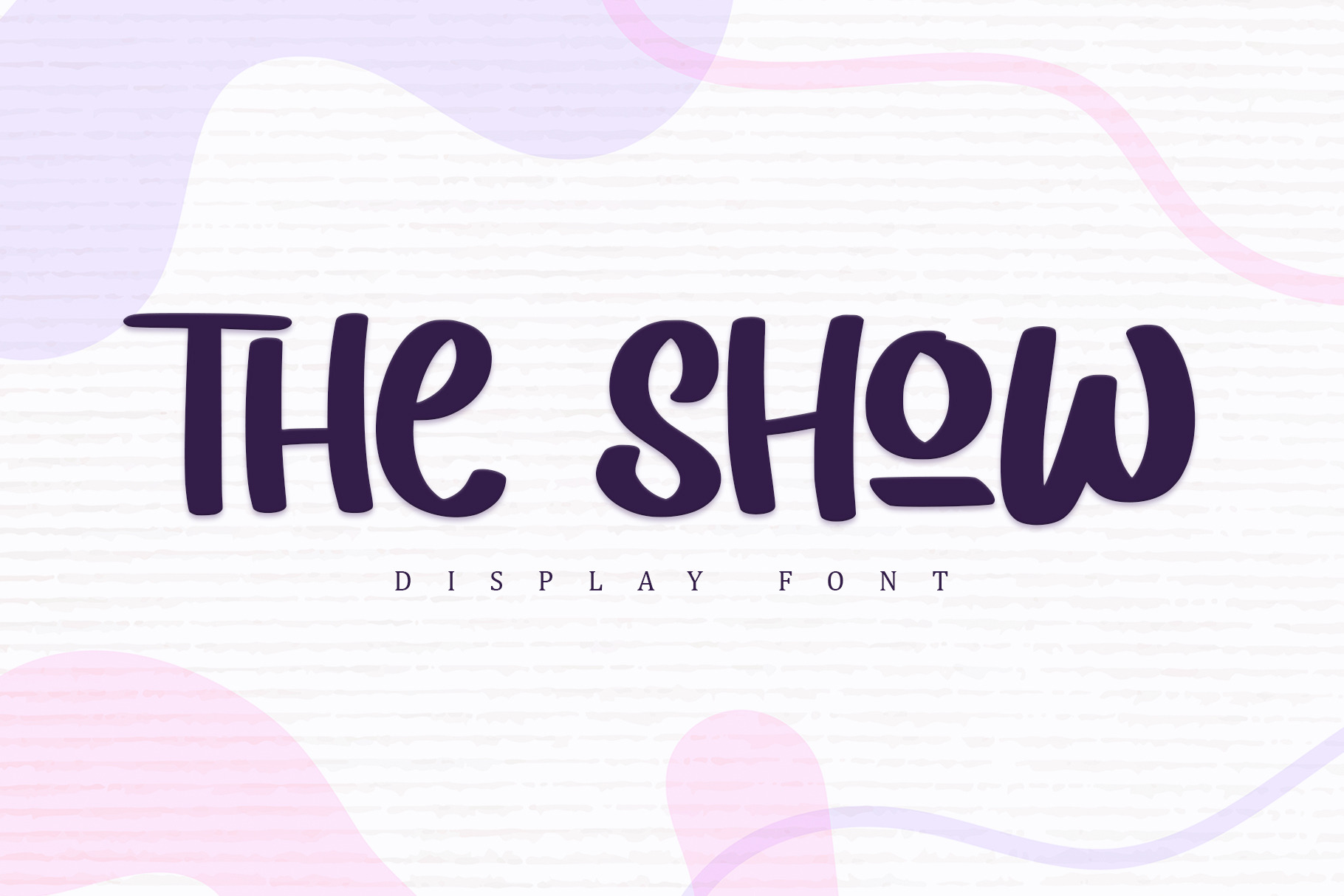
The Show - Display Font
The Show is a fun and friendly display font. Whimsical and a little bit quirky, this font will brighten up each of your designs!